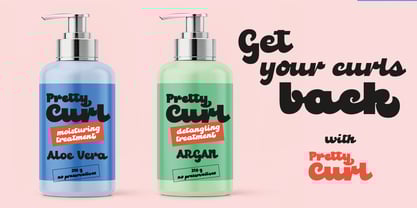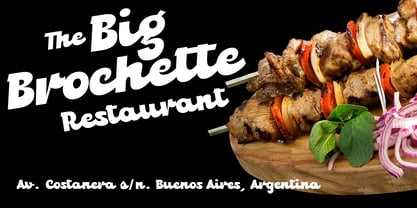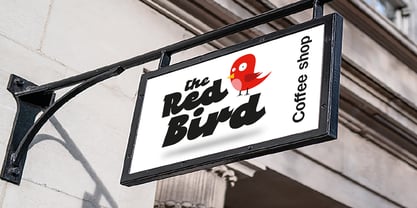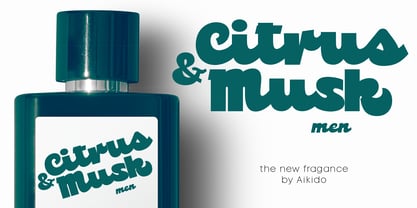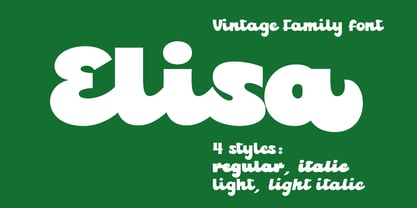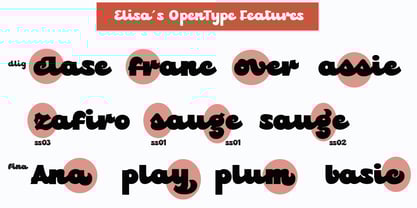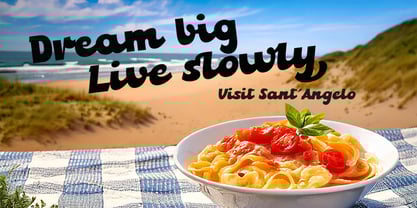
Elisa
Discover the new Elisa font! Elisa fuses vintage with modern in four unique styles: Regular, Italic, Light, and Light Italic. It's a handwritten and heavyweight font with an irresistible vintage charm that captivates at first glance. Inspired by mid-century designs, this font transforms any project into a vibrant piece. Each letter is full of personality, bringing warmth and authenticity to every word.
Elisa invites you to let your creativity run wild. Designed to make an immediate impact, it features numerous OpenType features, including a wide variety of ligatures that give your text a fluid and natural feel. It also offers multilingual support.
If you're looking for a bold typeface for logos, packaging, labels, posters, and headlines, Elisa is the perfect choice. Take your designs to the next level with its unique personality!